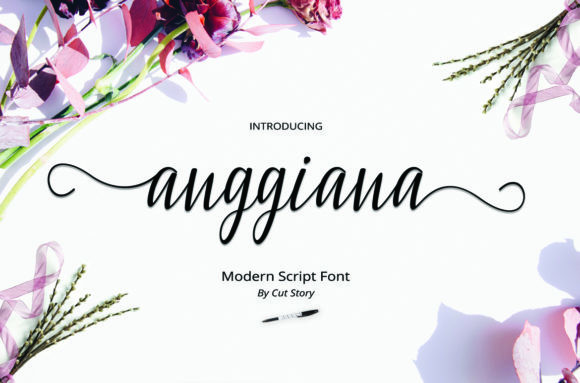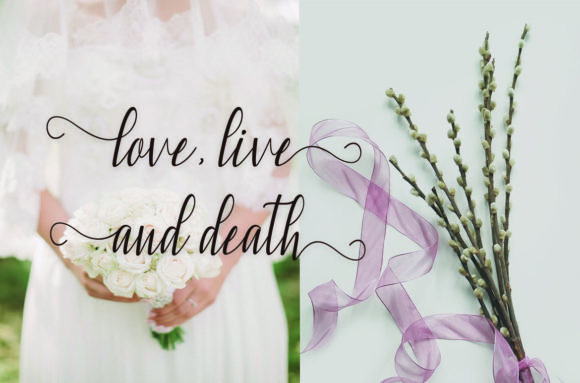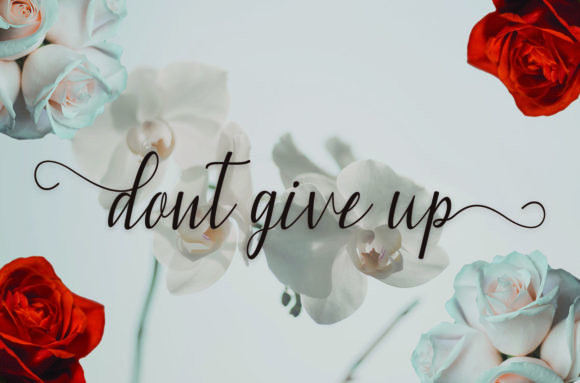
Anggiana Font
Anggiana is a sweet, soft hand-lettered script font. The playful rounded characters make it the perfect font for creating amazing designs!